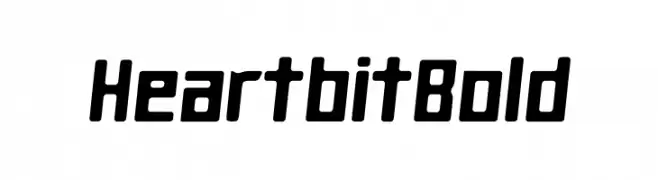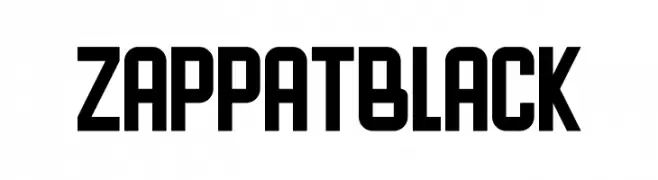
A decorative font with high contrast and intricate detailing, blending modern and vintage styles.
A playful, bold font with rounded edges and a hand-drawn feel.
A bold, graffiti-inspired font with a dripping paint effect.
A charming and elegant script font with flowing, cursive letterforms.
A casual, connected script font with rounded, playful forms.
Bold, playful script with hand-lettered brush style.
Handwritten cursive script with thin, flowing strokes.
A cursive, handwritten font with elegant, flowing letters.
A bold, modern sans-serif font with clean lines and a slightly condensed width.
A sleek, modern font with clean lines and a minimalistic design.
A tall, condensed font with a modern and sleek appearance.
A bold, expressive handwritten font with a lively and informal style.
A playful, casual handwritten font with smooth, flowing lines.
A lively handwritten script font with fluid, connected strokes.
A whimsical, elegant script font with playful loops and intricate curls.
A playful and energetic handwritten font with bold, irregular strokes.
A bold, modern sans-serif font with decorative dotted uppercase letters.
A bold, playful font with a hand-drawn, friendly appearance.
A dynamic and elegant script font with flowing, cursive letterforms.
A bold, geometric sans-serif font with outlined characters for a modern look.
An elegant, flowing script font with ornate uppercase and smooth lowercase letters.
A fluid and elegant script font with graceful curves and subtle flourishes.
A playful, handwritten font with smooth, flowing lines and a casual style.
A whimsical script font with heart motifs and elegant calligraphic elements.
A dynamic, expressive handwritten font with fluid strokes and playful curves.
An elegant script font with flowing, cursive strokes and graceful curves.
A modern, elegant handwritten font with fluid, connected letterforms.
A dynamic, cursive font with fluid strokes and a handwritten appeal.
A bold, geometric sans-serif font with a modern and clean design.
A fluid and elegant script font with a handwritten style.
A graceful and elegant script font with a handwritten style.
A classic serif font with elegant strokes and balanced contrast.
A lively, cursive font with interconnected letters and a playful, handwritten style.